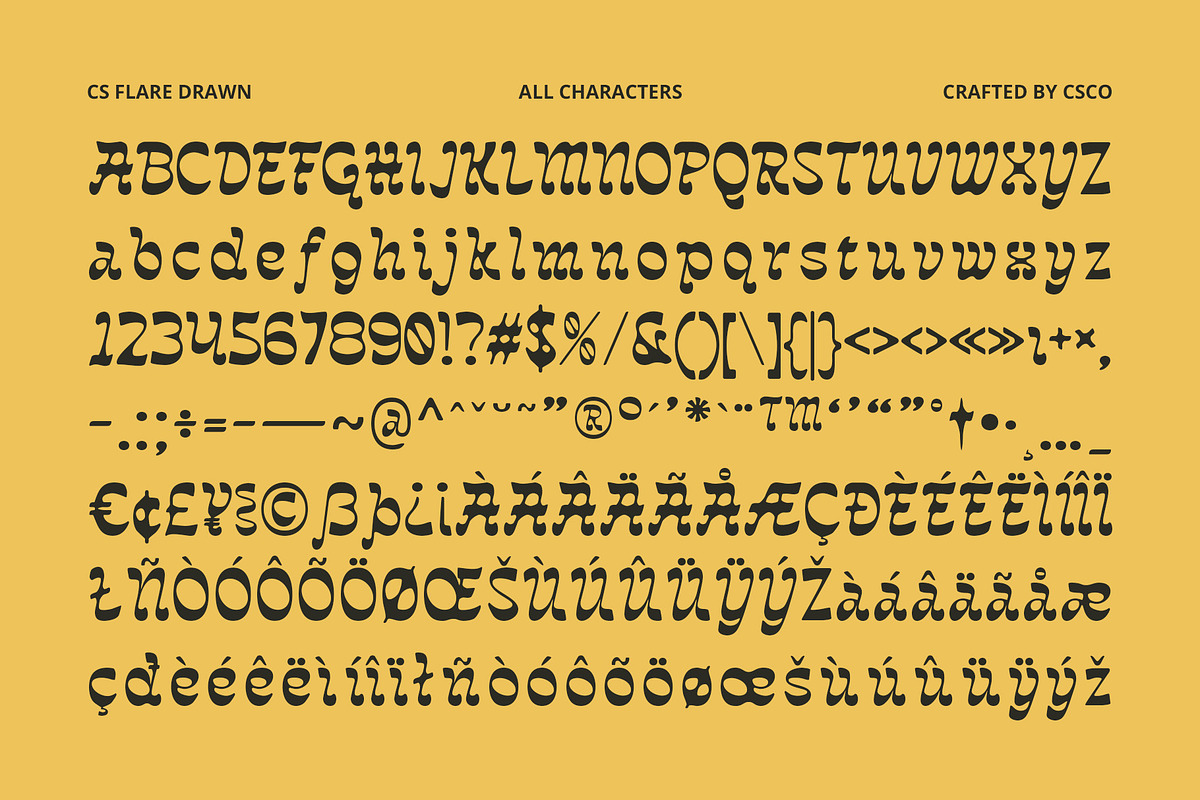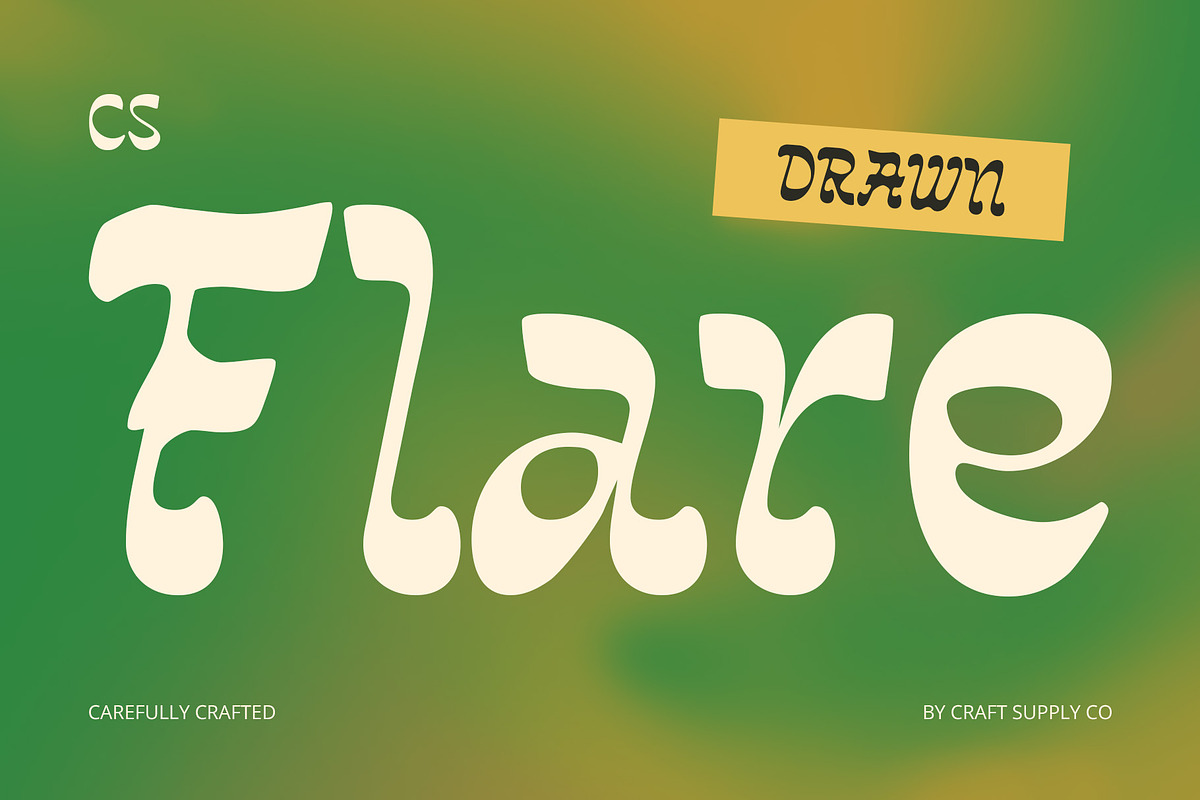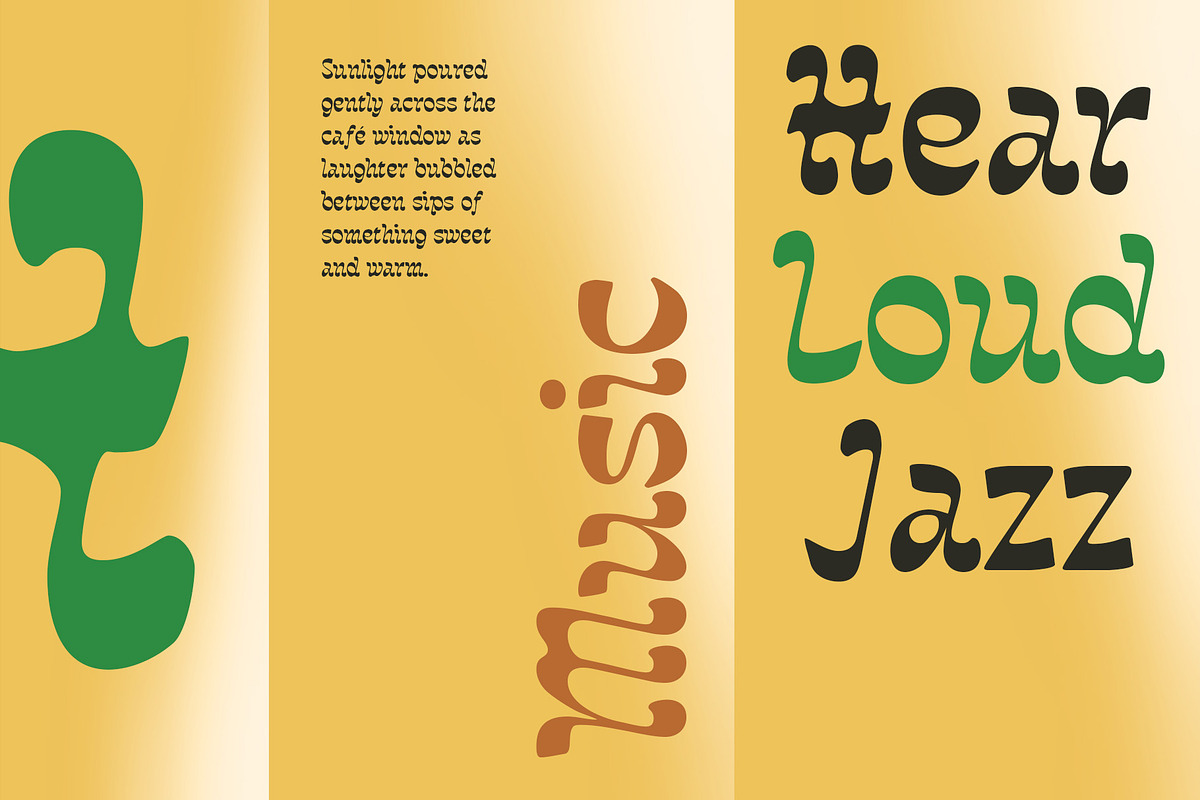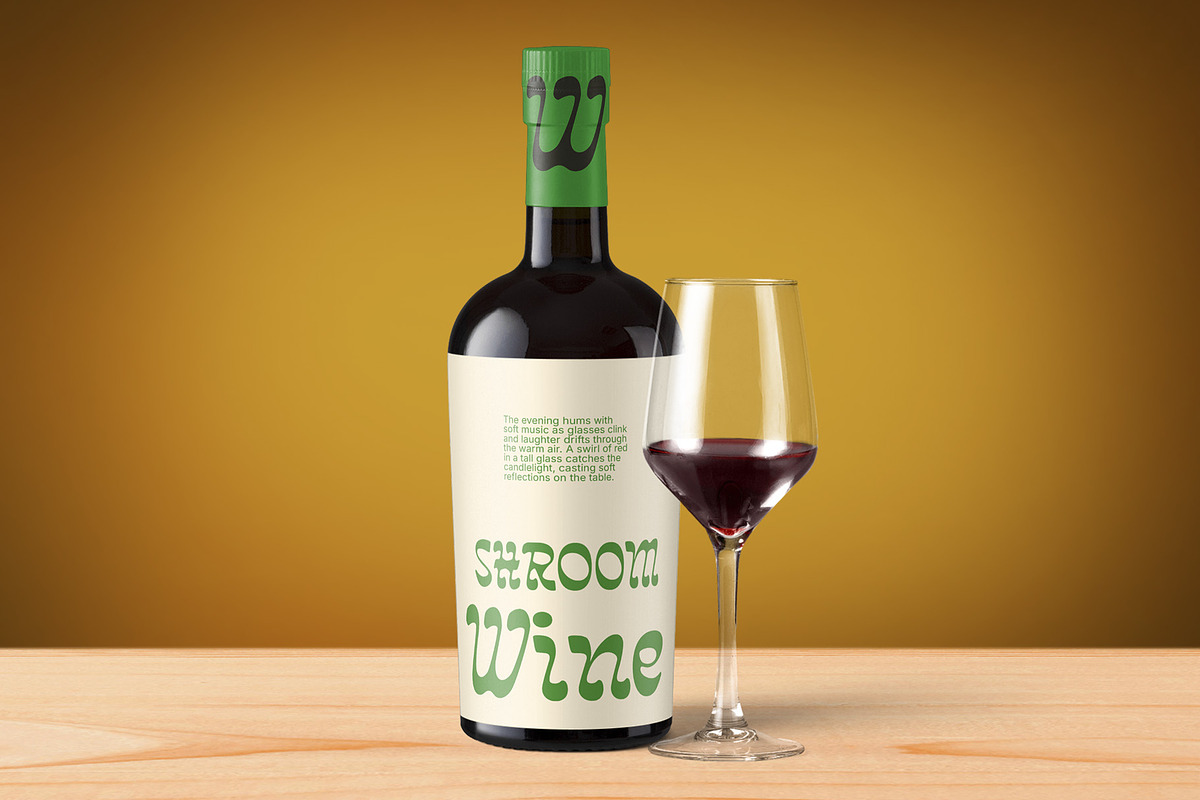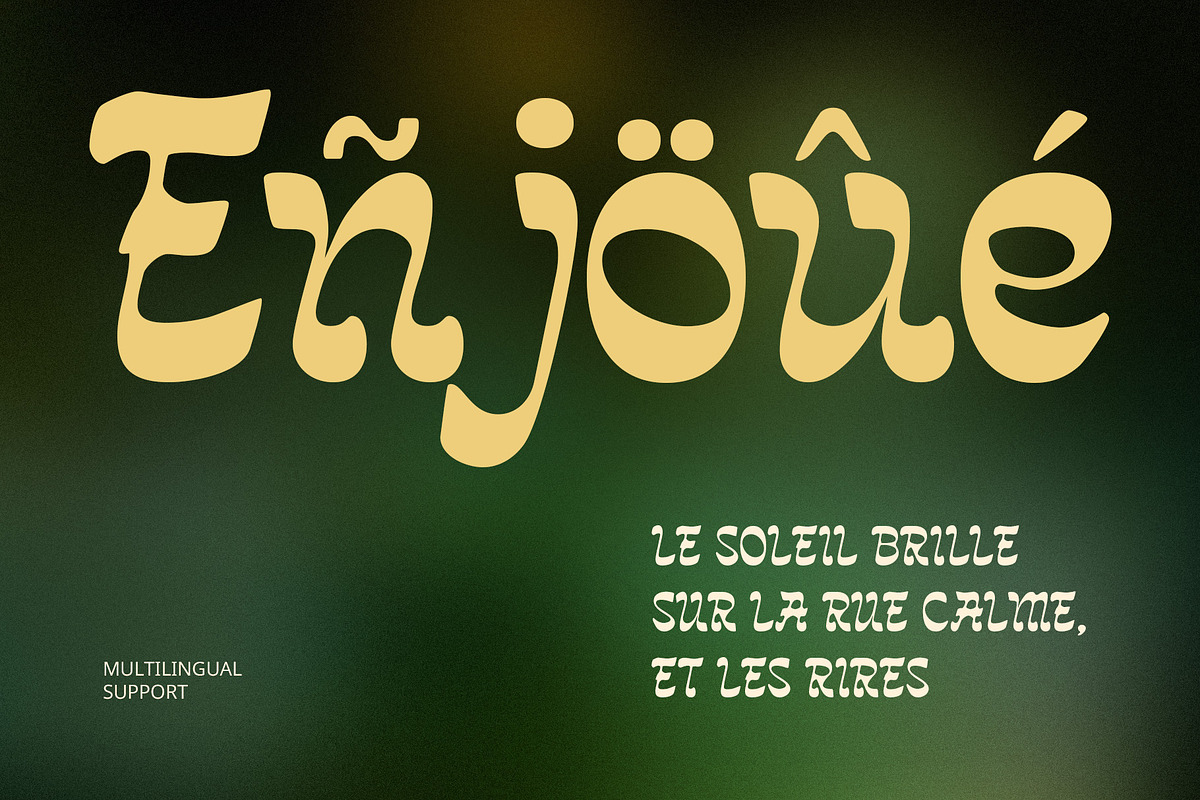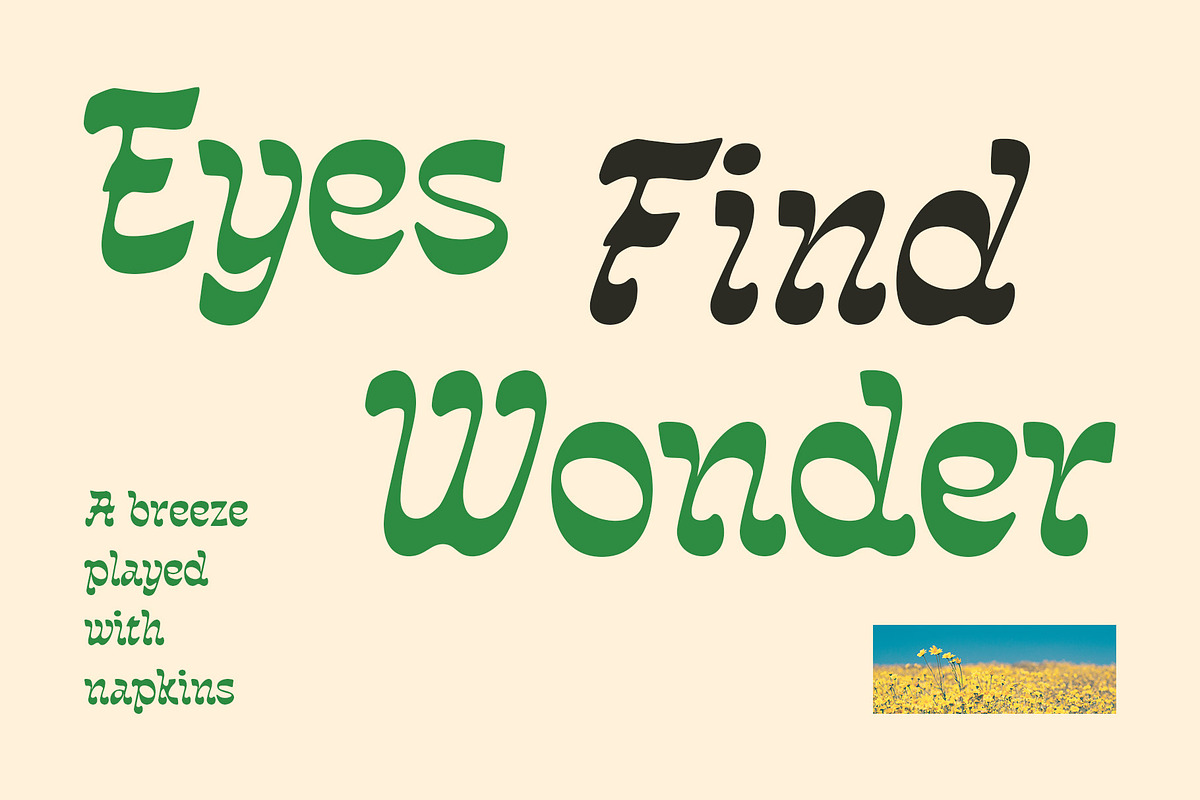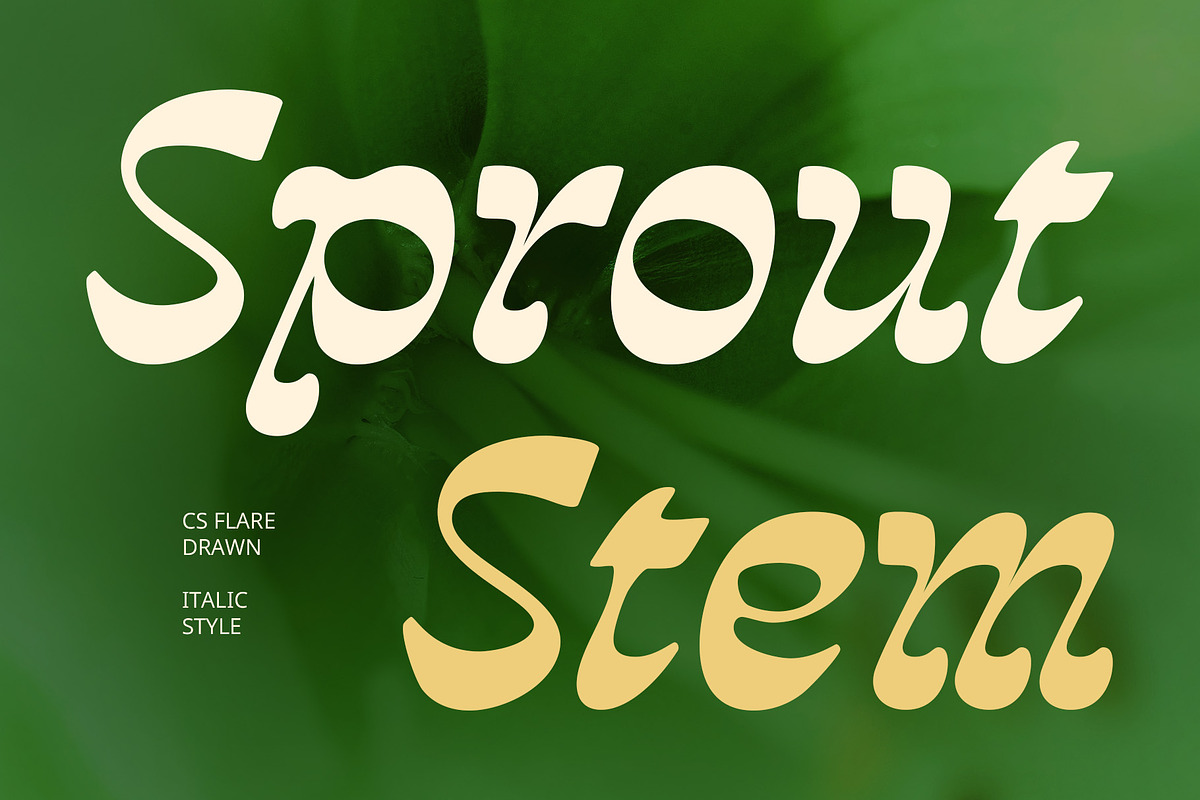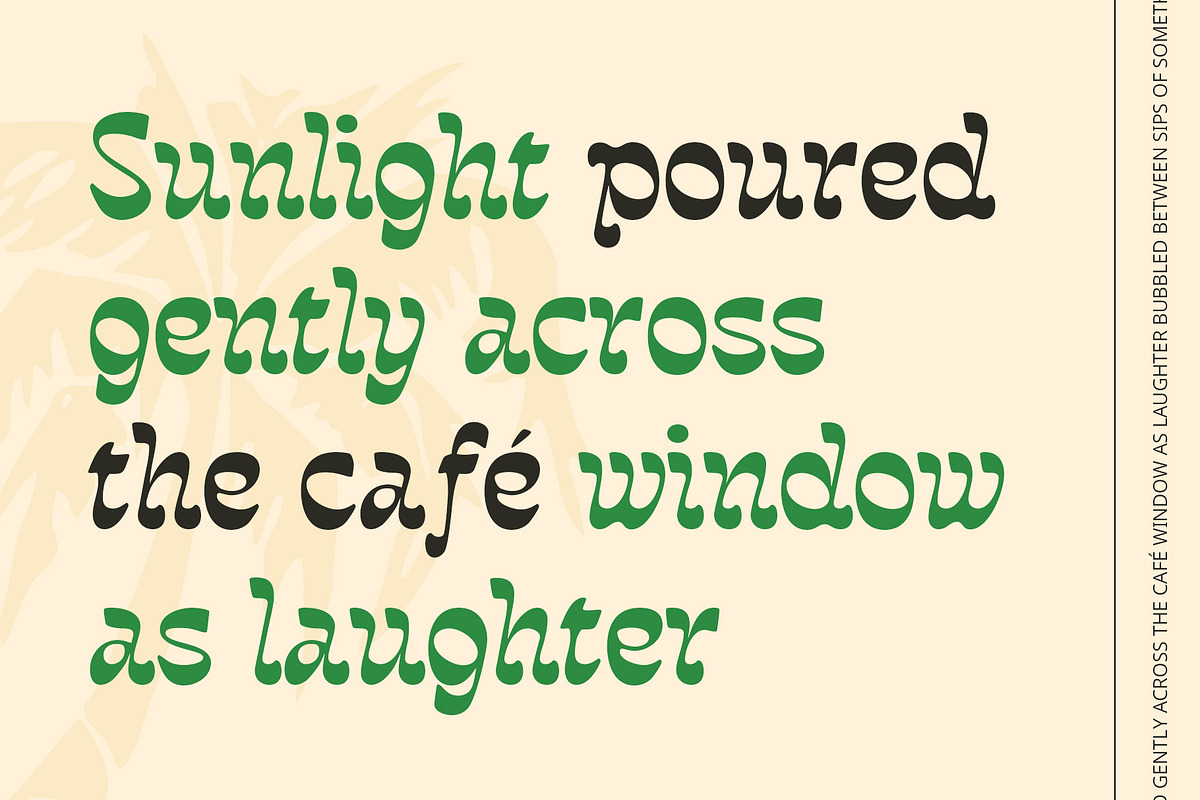
CS Flare Drawn
CS Flare Drawn – Retro Energy with a Handcrafted Twist
Bold Reverse Contrast for Eye-Catching Appeal CS Flare Drawn is a vibrant display font featuring a reverse contrast style—where horizontal strokes are thicker than vertical ones—instantly creating a bold, unconventional look. This design twist draws attention and gives the typeface a dynamic, modern-retro personality, making it stand out in any visual composition.
Retro Funk with Playful Character Infused with retro and funky vibes, this bold and funky typeface radiates cheerfulness and expressive energy. Its playful letterforms embody movement and fun, bringing a sense of joy and liveliness that’s perfect for music posters, youth-centric visuals, or creative branding. It’s a font that doesn’t take itself too seriously—ideal for projects with a colorful and bold aesthetic.
Drawn Texture for Artistic Expression The hand-drawn effect adds an organic, artistic layer that softens the structure and enhances its creative charm. This handcrafted texture brings a raw, personal touch to the font’s already expressive nature, making it feel approachable and unique, yet visually impactful.
Perfect for Standout, Expressive Design Whether used in vintage-modern design projects, album covers, artistic branding, or experimental layouts, this playful font offers designers a fresh, standout option. It’s designed for those who want their typography to be noticed, remembered, and full of character—delivering a visual punch with both fun and flair.